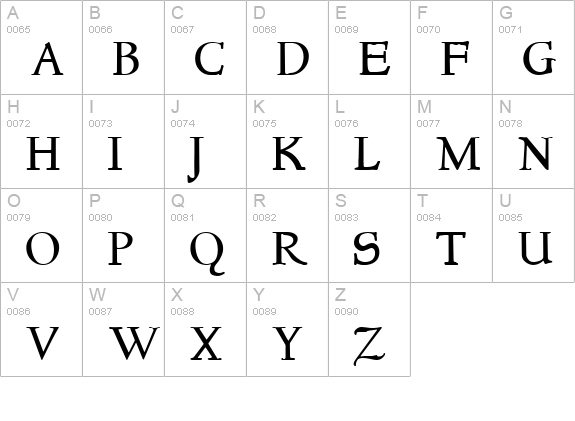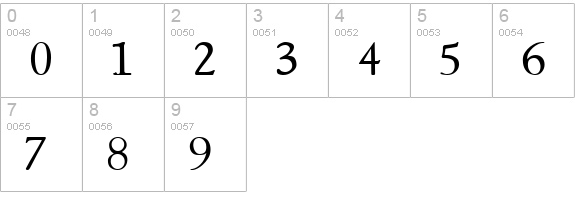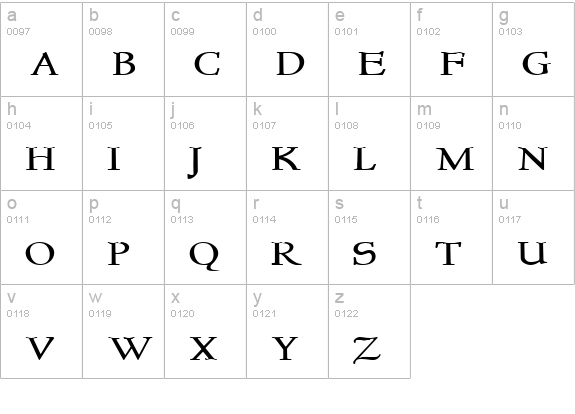
NewStyleSmallCaps Font Details
Introducing NewStyleSmallCaps font - a modern and stylish typeface perfect for adding a touch of sophistication to your designs. This elegant font features small caps letters with a unique twist, making it stand out from the crowd. Its sleek and contemporary design makes it versatile for a wide range of projects, from branding to editorial design. Best of all, NewStyleSmallCaps font is completely free to download at FontsMarket.com. This means you can elevate your designs without breaking the bank. Don't miss out on this opportunity to enhance your creative projects with this sleek and stylish font. Download NewStyleSmallCaps today and take your designs to the next level!